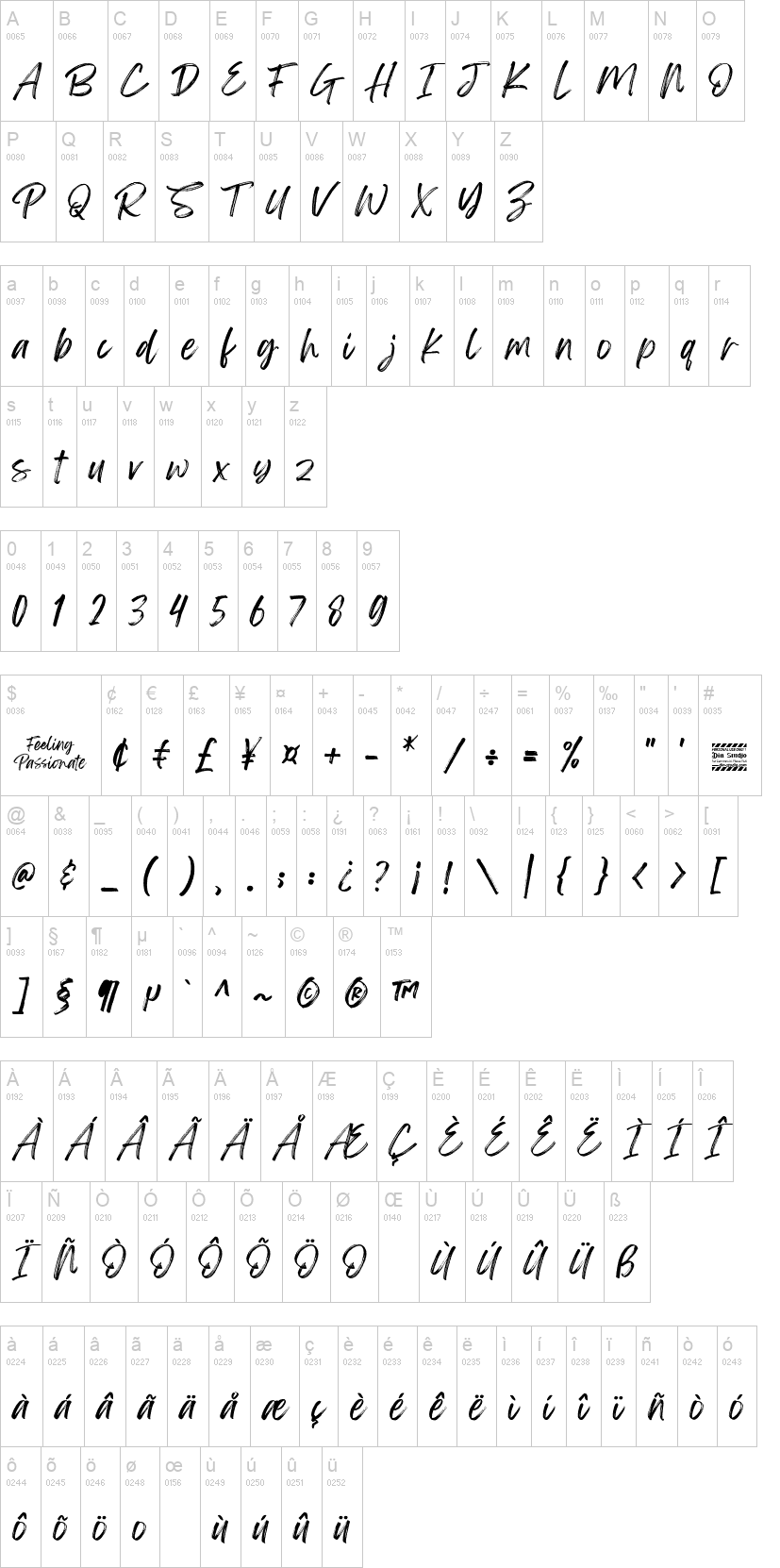
Feeling Passionate is a lovely and simple brush font. It will make your design projects more appealing. This font is appropriate for any design, including branding, fashion, printed templates, quotes, and weddings.
� Alternates
� Ligatures
� Swashes
� Multilingual Supports
� Numerals and Punctuations